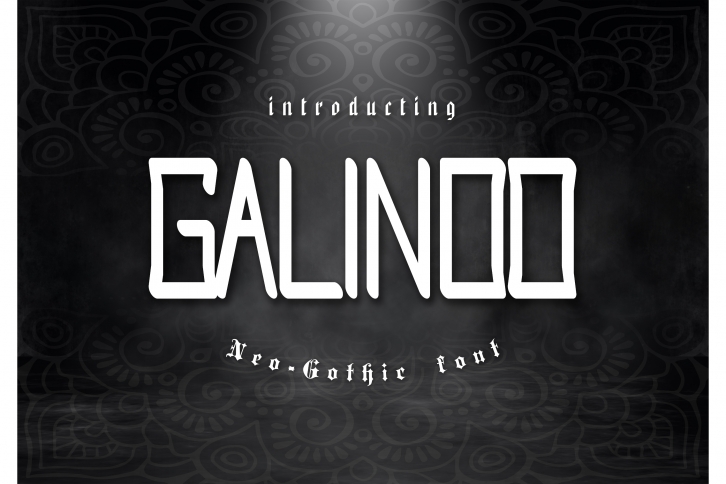
Galindo Neo-Gothic Font Download
Galindo Neo-Gothic is a great font that was designed by Eldamar Studio. Imagine the amount of combinations you can create using this font! The archive is 18.68 MB and it was released on February 7, 2020. Galindo Neo-Gothic looks beautiful on wedding invitations, greeting cards, logos, posters, labels, t-shirt designs, logos, business cards and is perfect for use in ink or watercolor works, fashion, magazines, packaging and food menus, children's books and more!